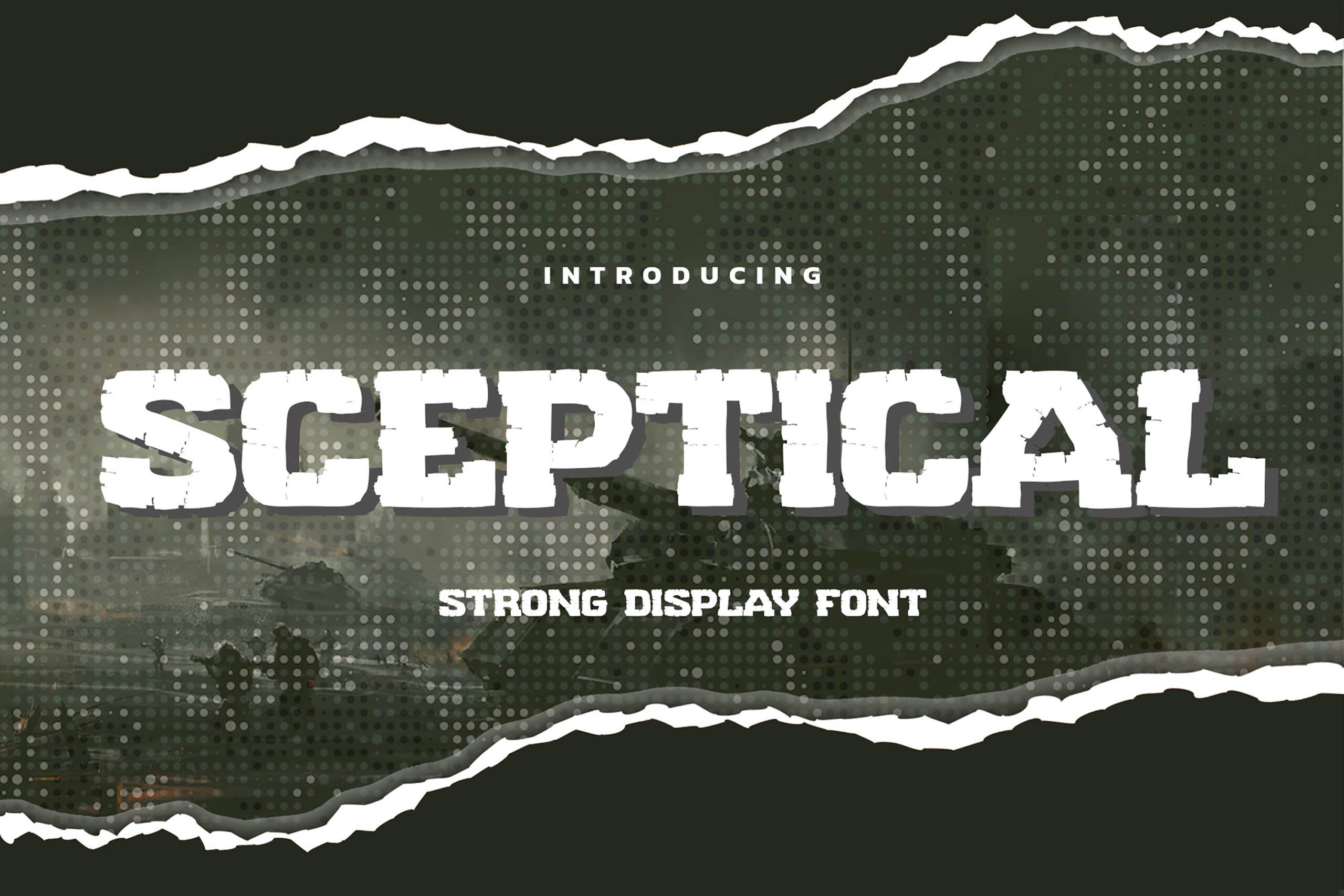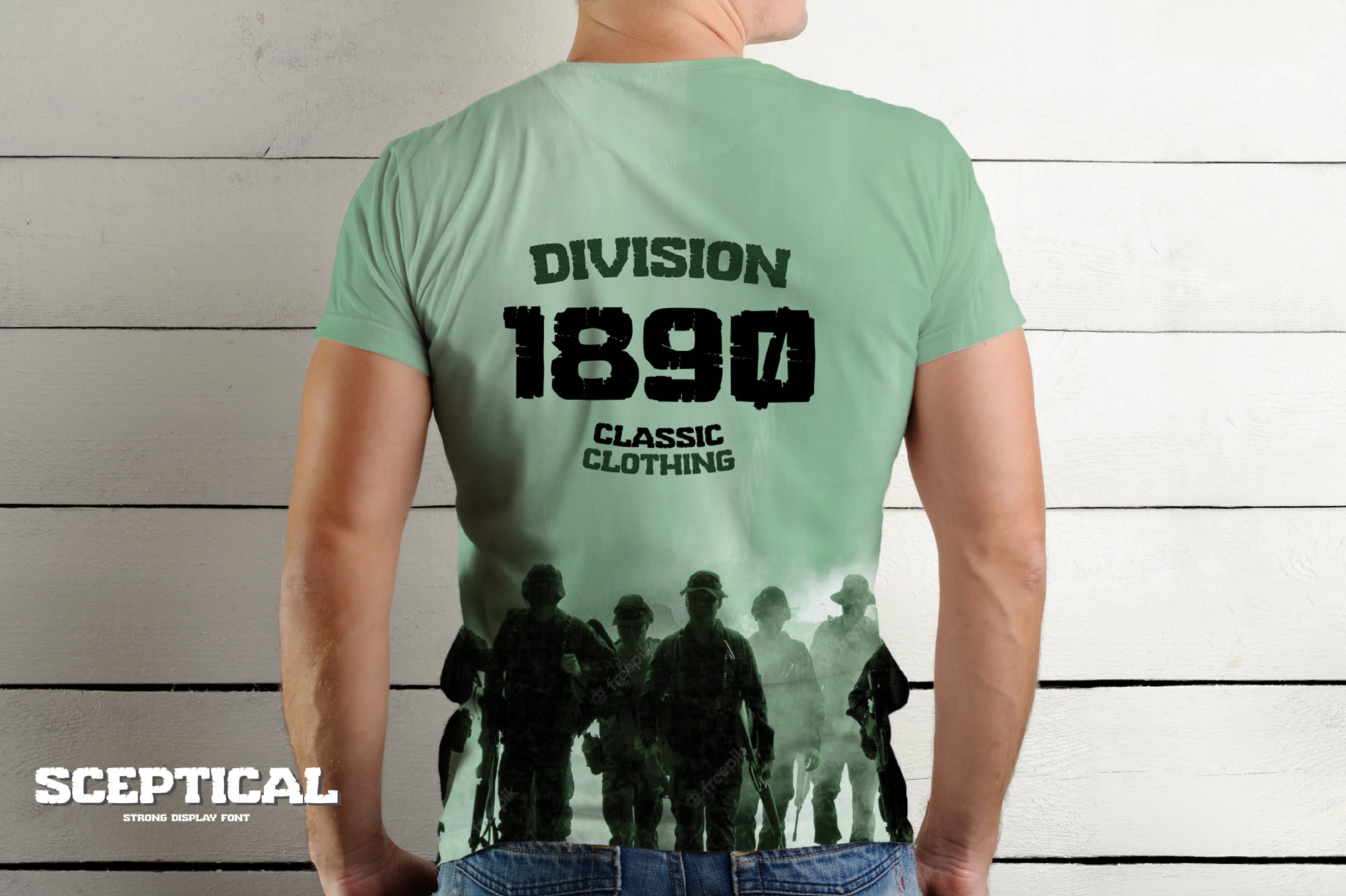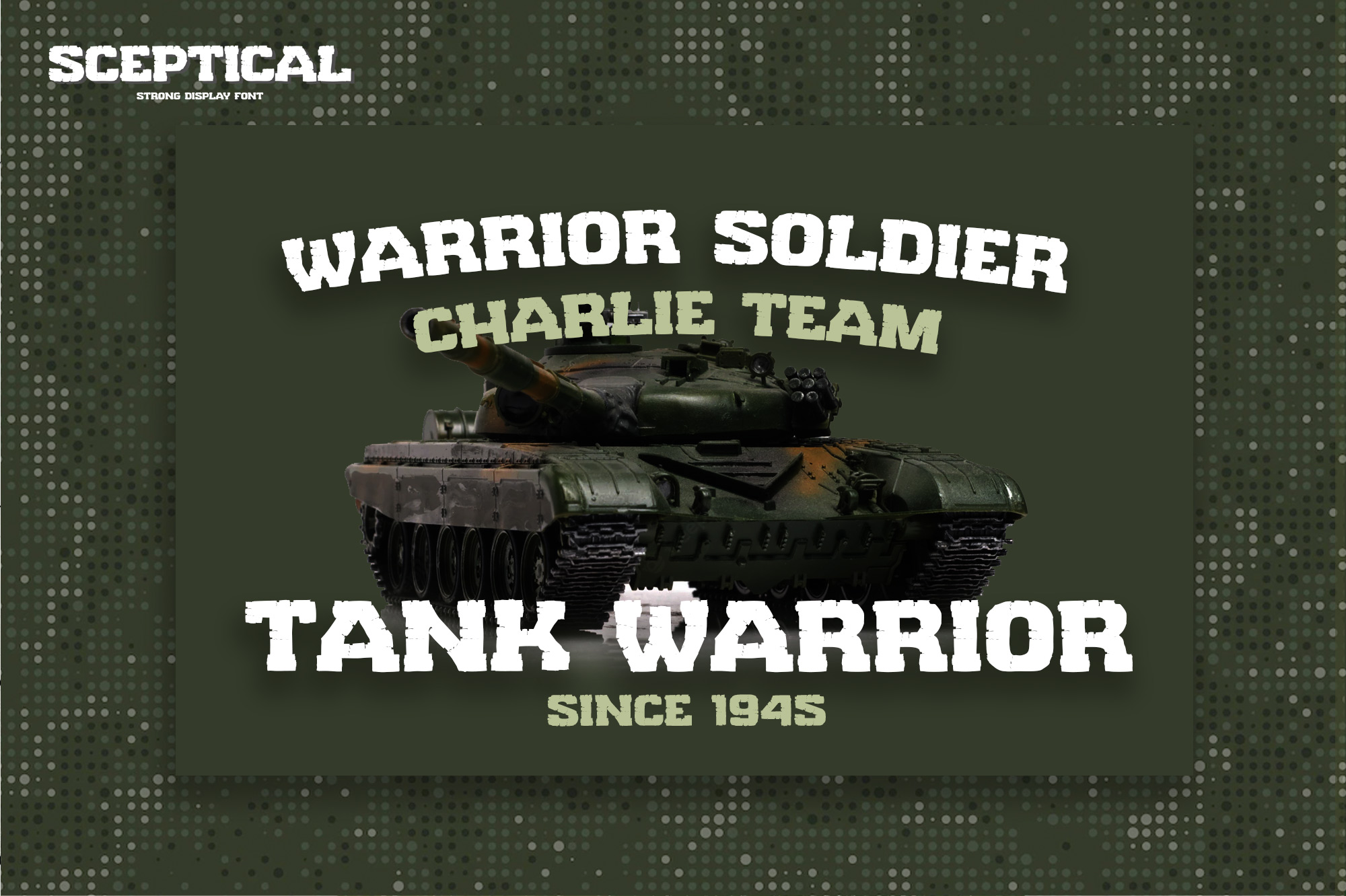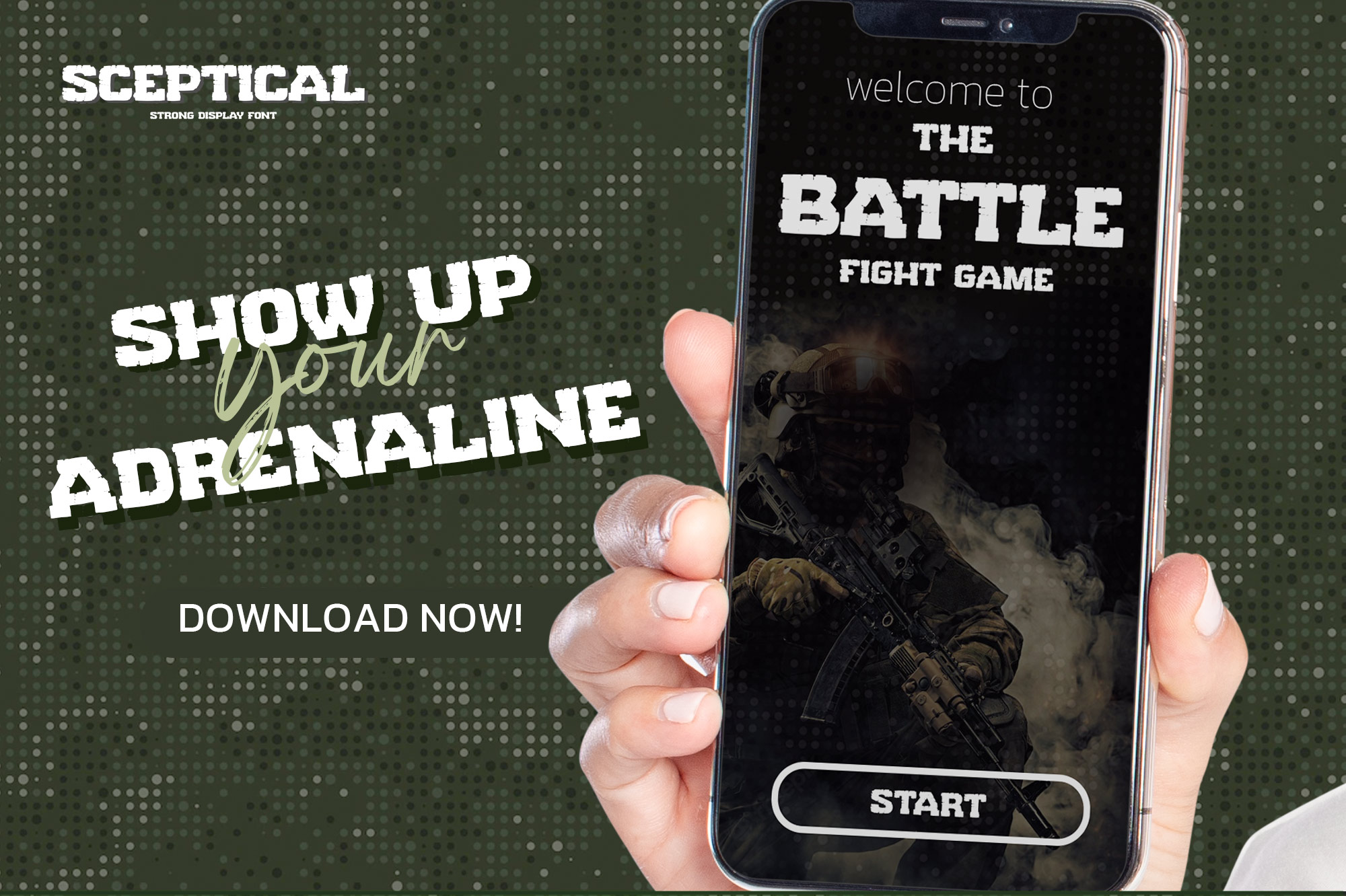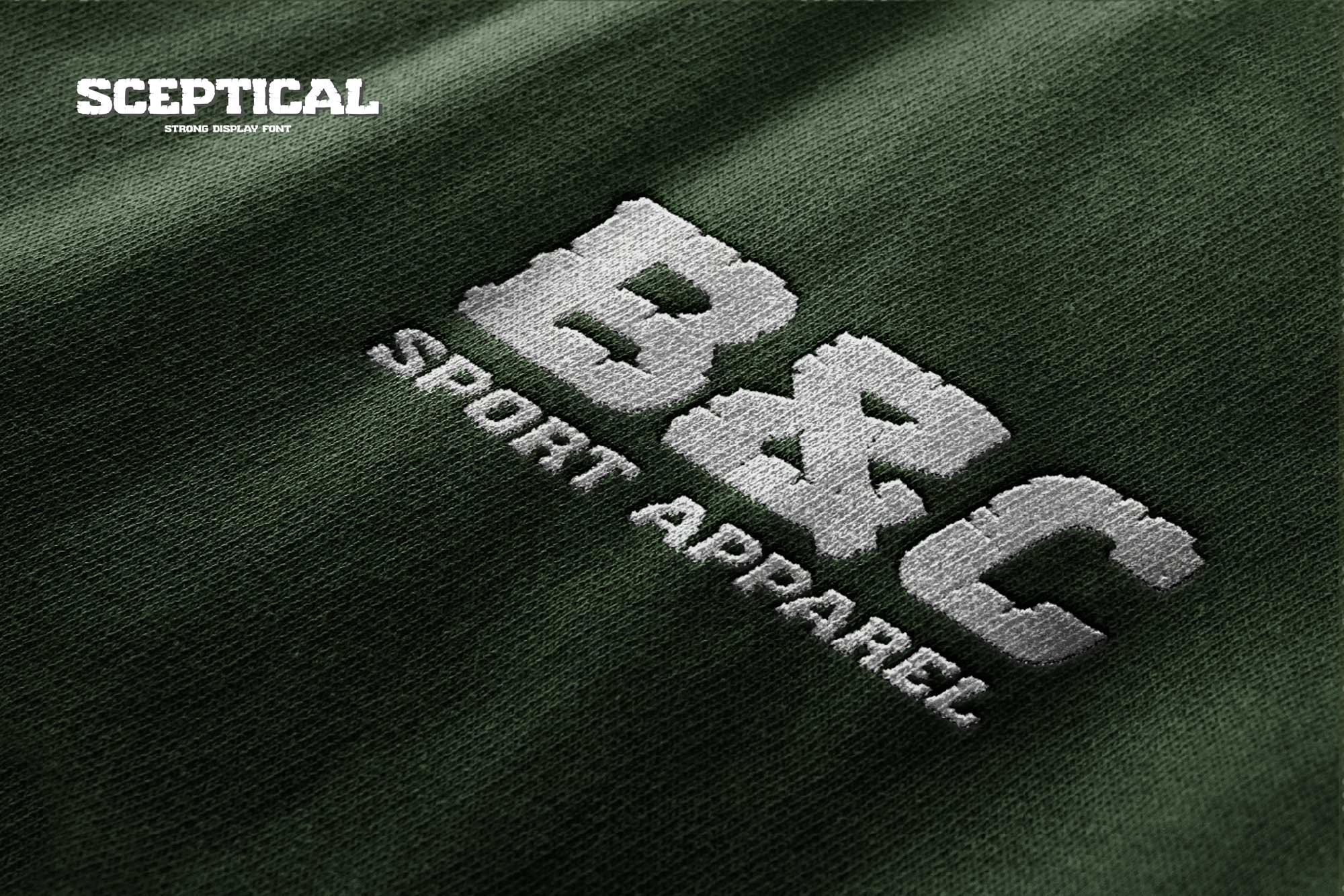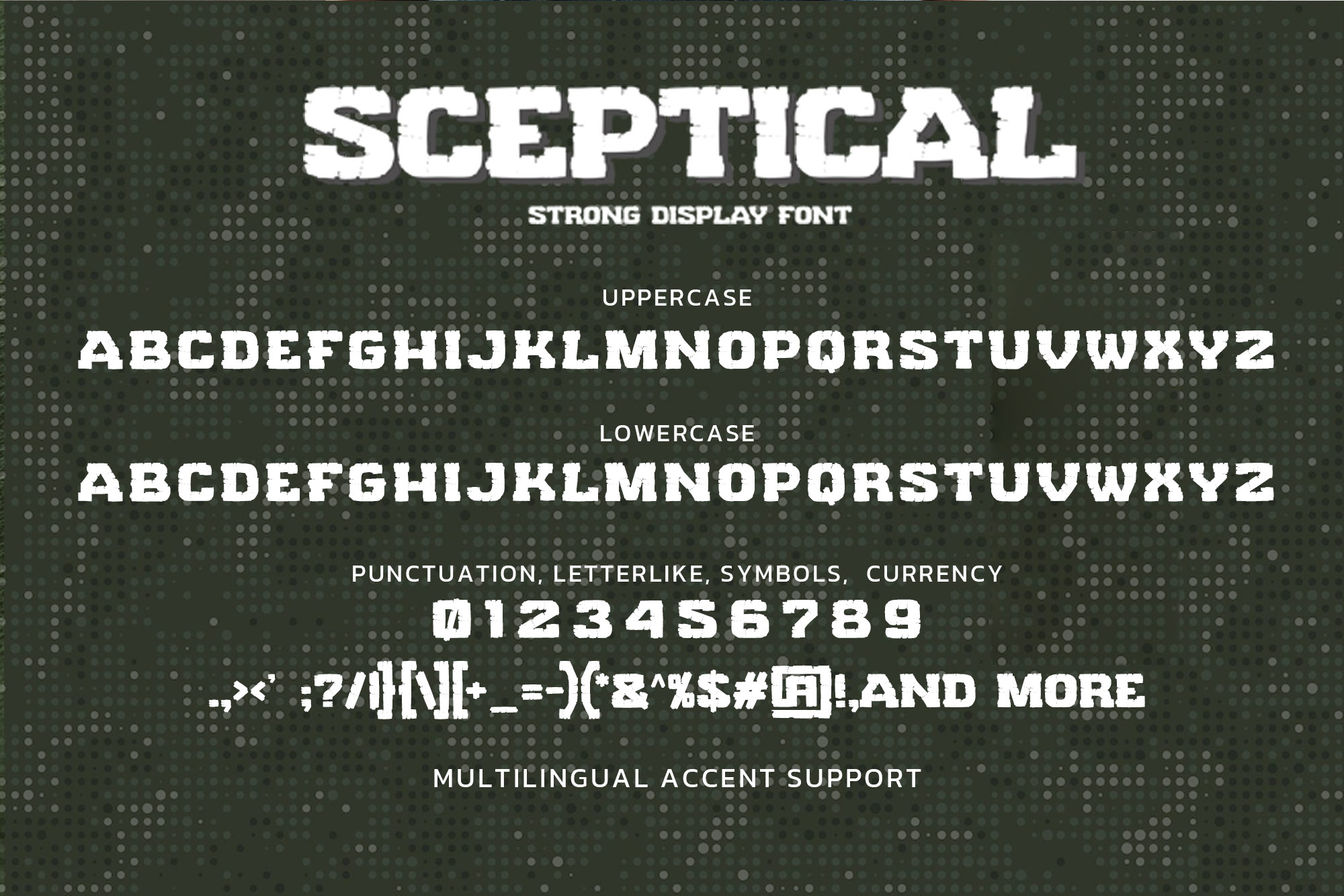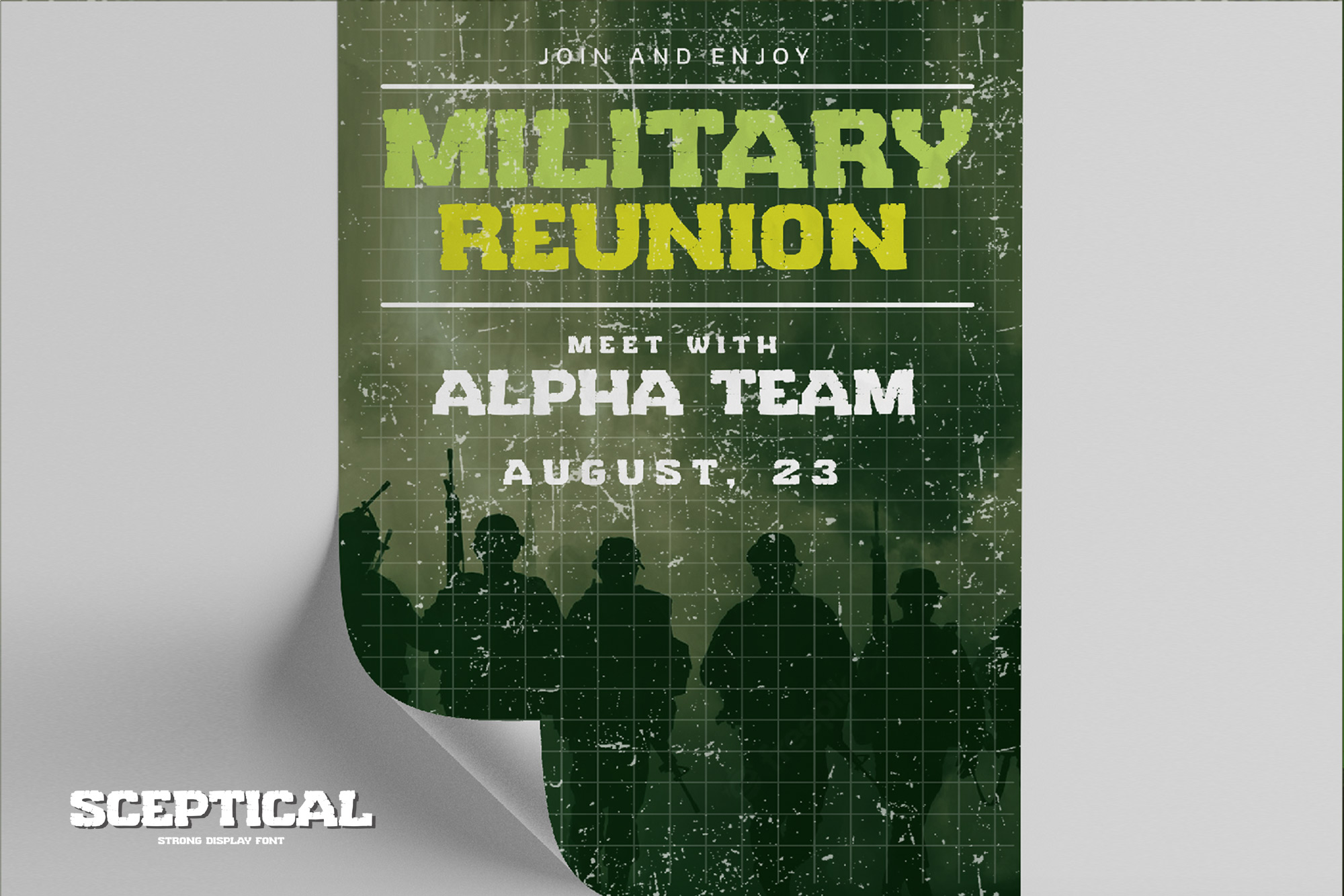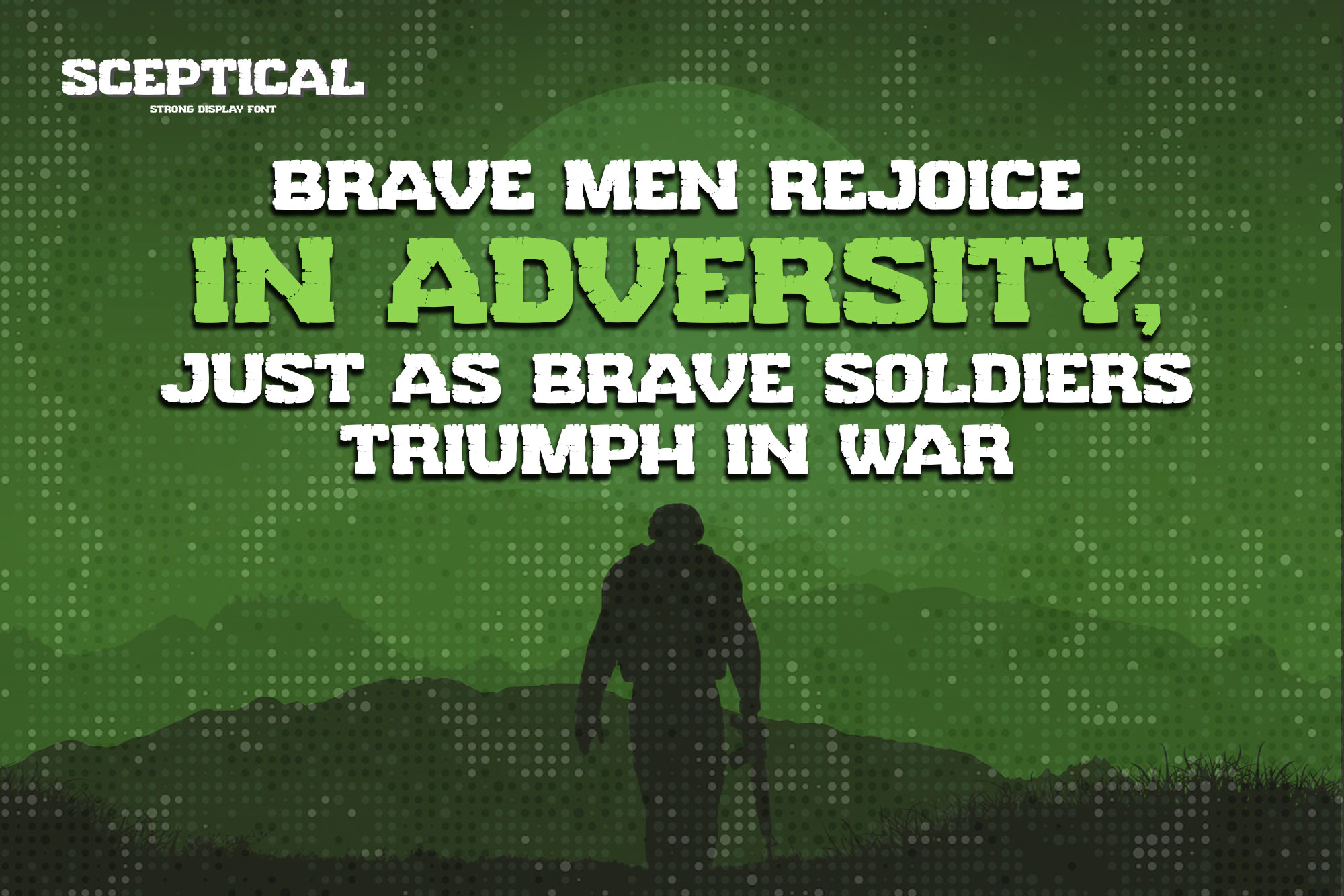
SCEPTICAL – Strong Display Font, modern style and dramatic movement that is written casually and quickly.
The best for labels, poster, project designs look modern, authentic and fun. It’s perfect for labels, quotes, posters, DIY projects, branding, packaging, greeting cards, websites, photography overlays, signs, scrapbooking, tags and so much more! That is why SCEPTICAL has a textured, and authentic characteristic more natural look.